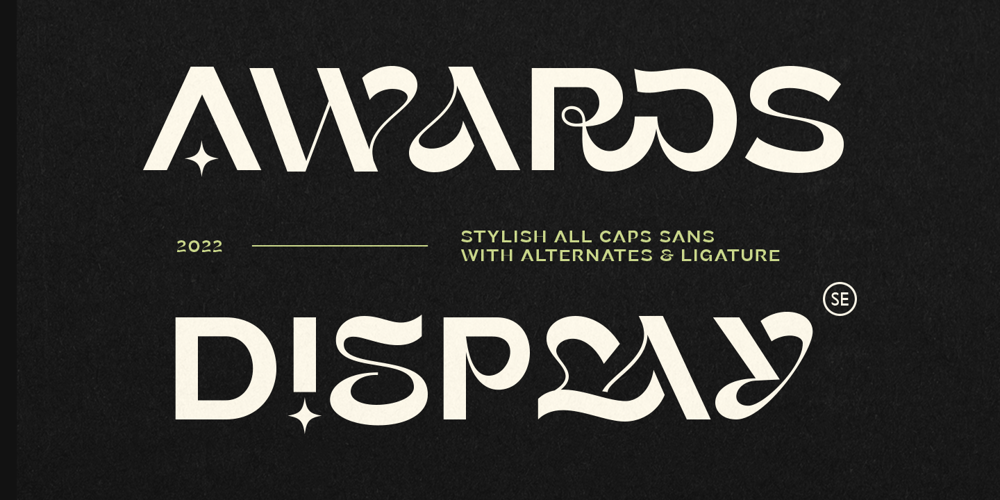
Awards Font Family was designed by Sarid Ezra and published by Sarid Ezra. Awards contains 1 styles and family package options. Introducing, Awards, a stylish and unique all caps sans!Awards is a modern and styled typeface based on sans. Including unique lowercase that will compliment your branding and logo. The stylish ligature also included in this font that will make your design even more stunning. Also including starry alternates for additional. Awards also support multilingual.